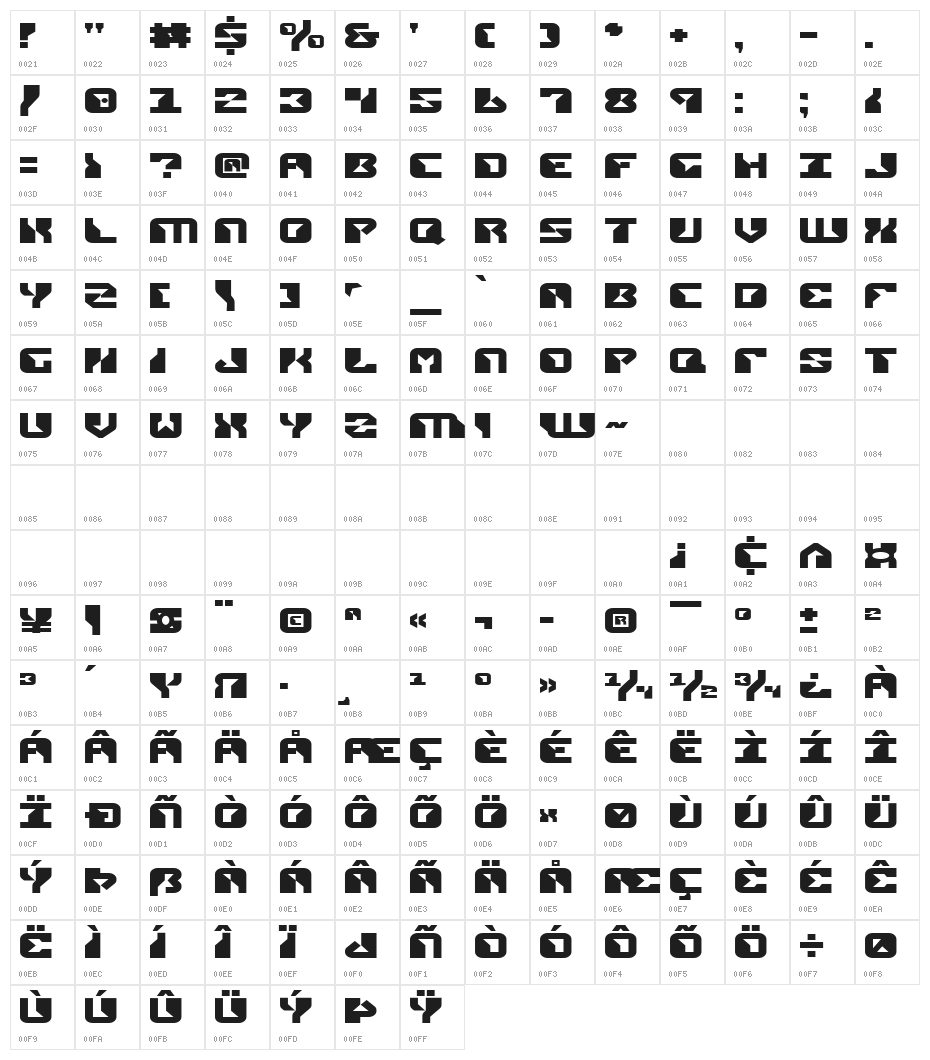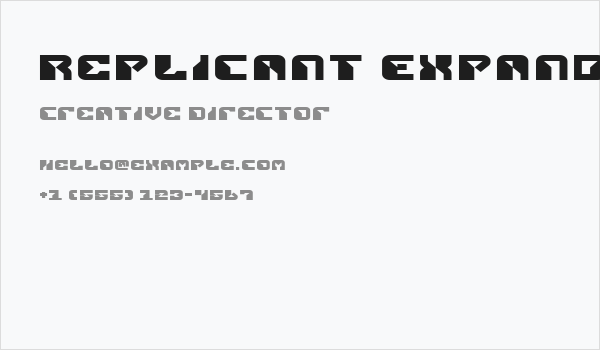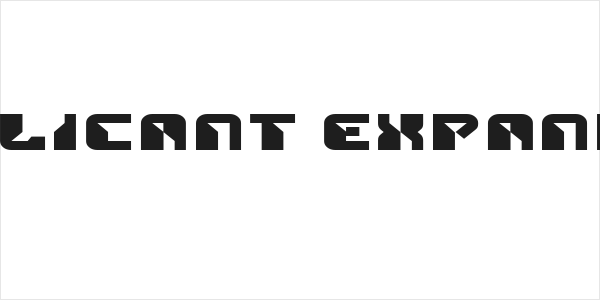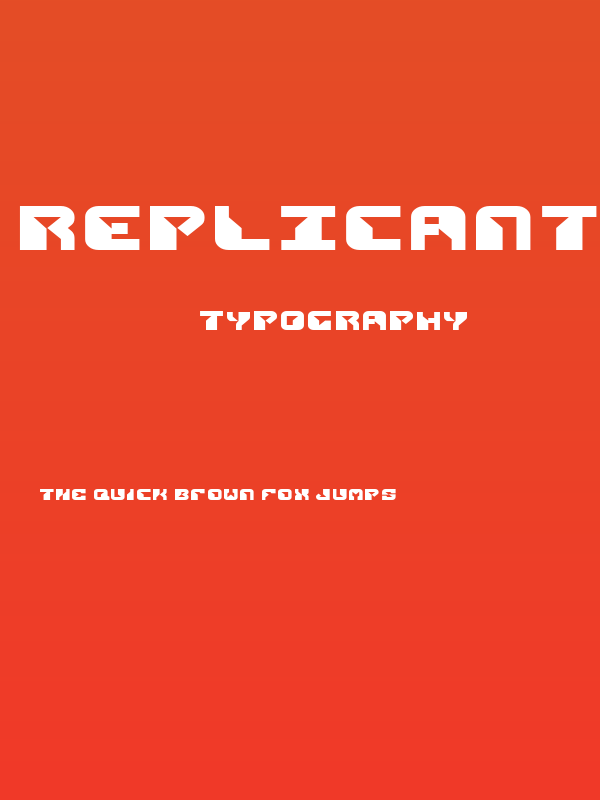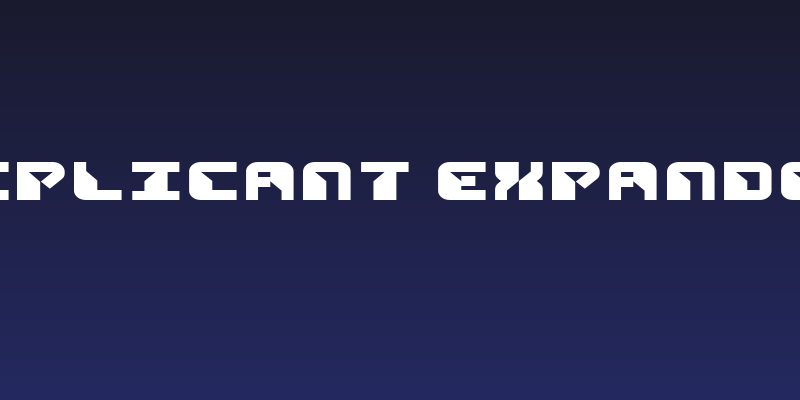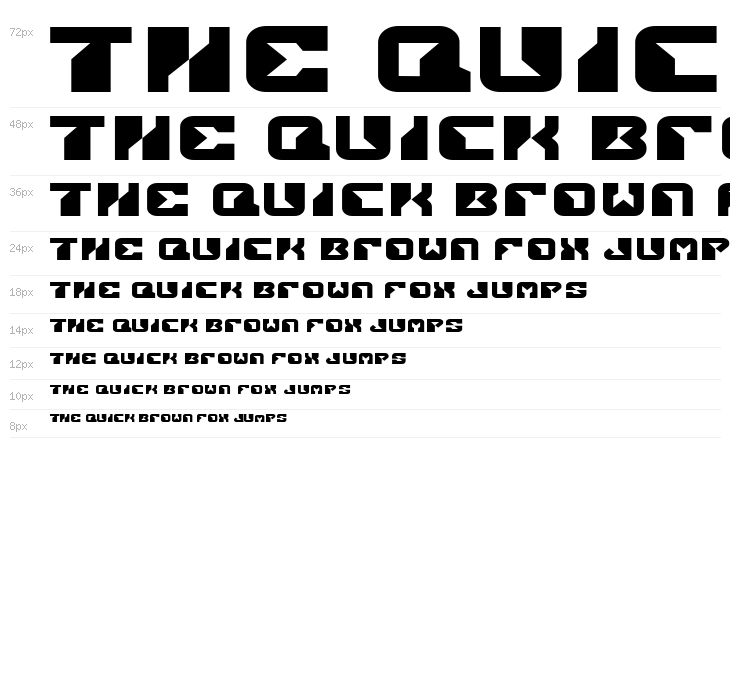
Replicant Expanded Font
Replicant Expanded Description
This font features a bold and futuristic design with geometric and angular shapes. The characters are constructed with sharp edges and a blocky appearance, giving it a strong and impactful presence. The uppercase and lowercase letters maintain a consistent style, with a unique cut-out effect that adds a sense of depth and modernity. The numbers and special characters follow the same design principles, ensuring uniformity across all glyphs. This font is ideal for projects that require a modern and technological aesthetic.
Proposed ProjectsIdeal for sci-fi movie posters, video game titles, tech company logos, and futuristic-themed branding.